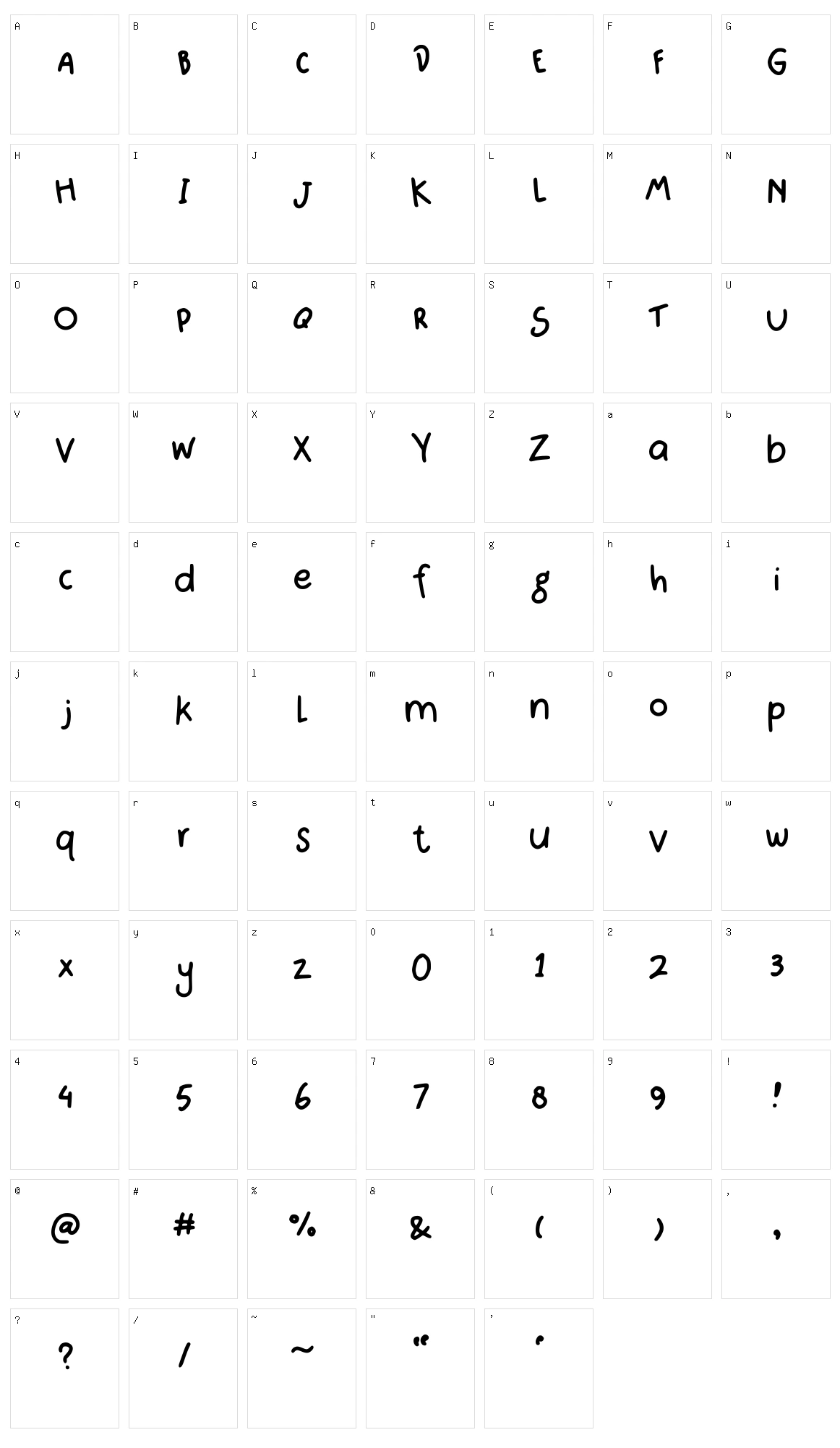
The free font Asli Yang Ada Badaknya is carefully designed by Asli Yang ada badaknya, showcasing a thoughtful balance of creativity and usability and falls under the Script font style. When you download the ZIP file, it contains only 9.26 KB of font files, making it lightweight and quick to download. Please review the license details below to understand permitted usage and distribution rights. If license information is not available, we recommend using this font for personal projects only or contacting the author directly for commercial usage permissions.